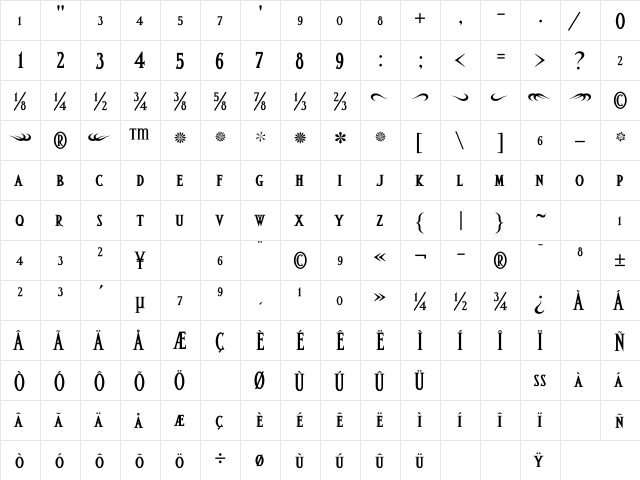
AltarFractions Bold Regular
Design Context for AltarFractions Bold Typeface
AltarFractions Bold is a composed and adaptable typeface that performs quietly and consistently across a wide range of design contexts. Its bold stroke weight gives it real presence on the page.